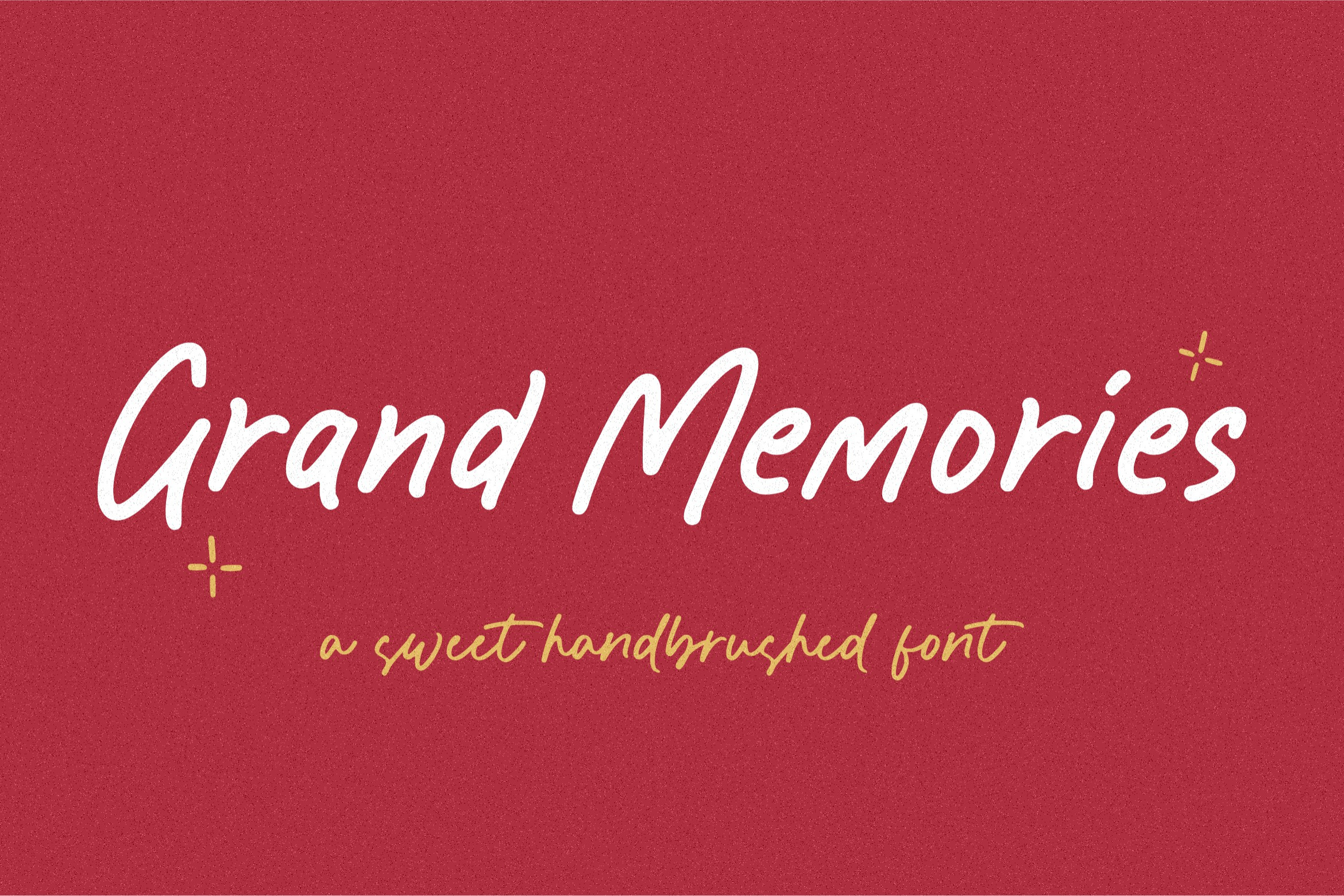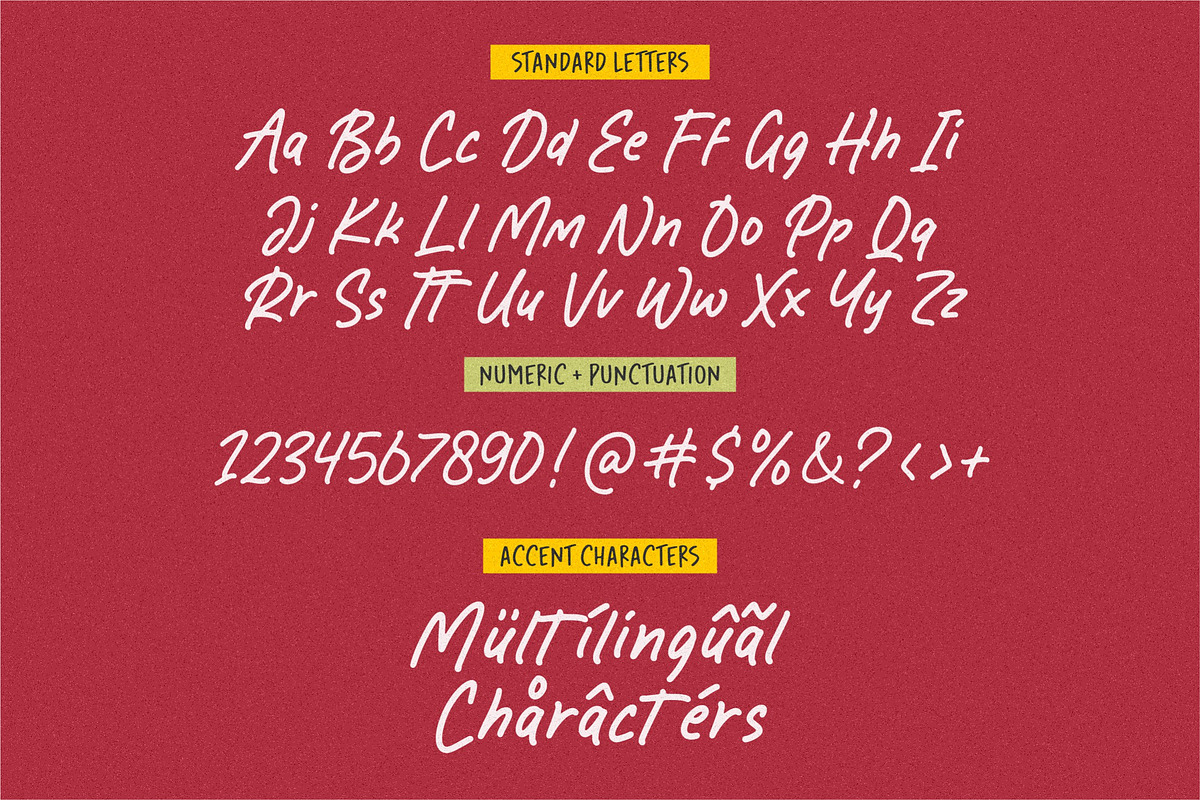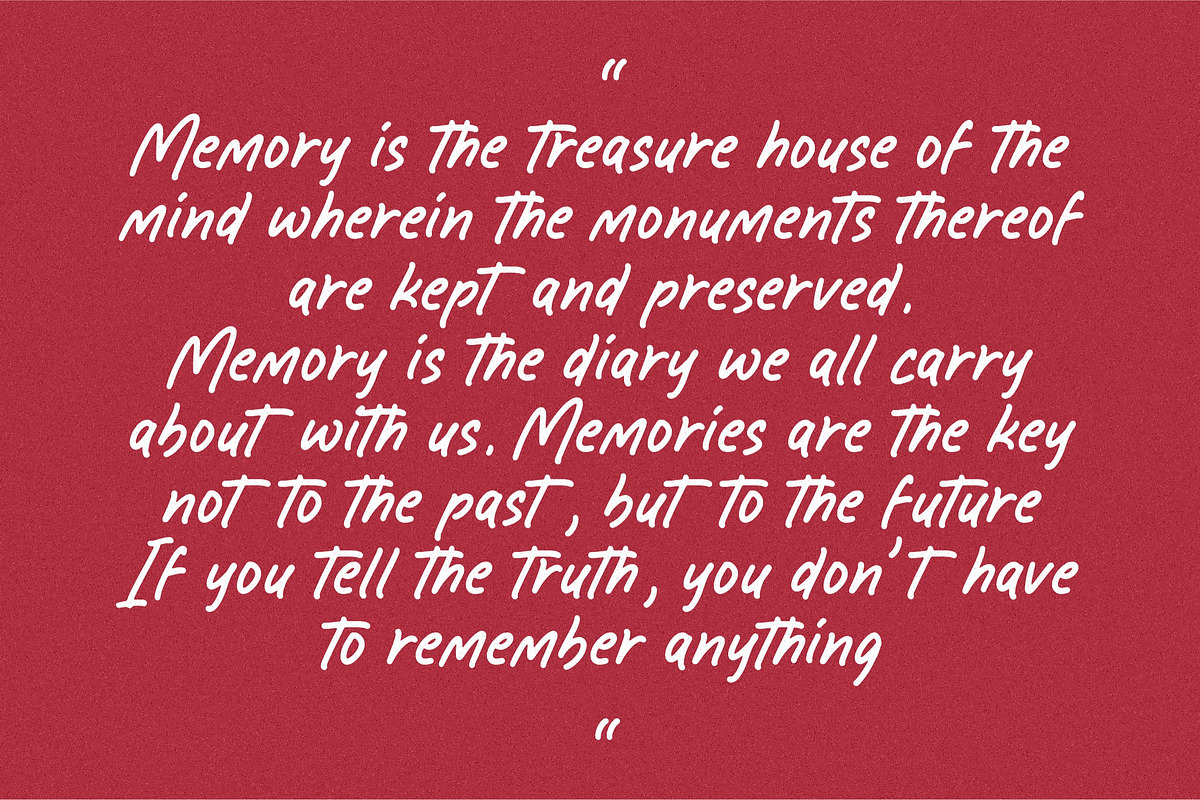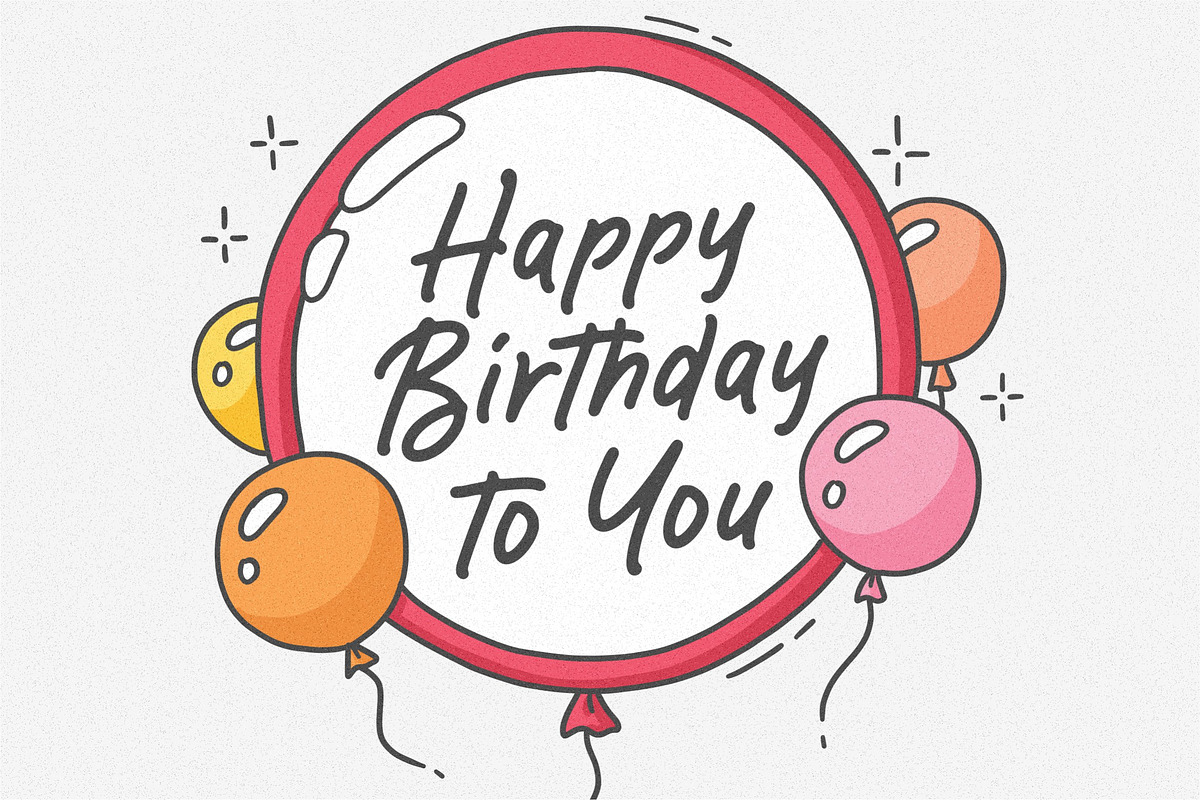
Grand Memories Font
Introducing by Balpirick Studio.
Grand Memories is a Sweet Handbrushed Font that's perfect for adding a personal touch to your design projects! With its natural, organic feel and unique character.
Crafted with care and attention to detail, this font is incredibly versatile and can be used for a range of design projects, including logos, branding, invitations, and more. Its modern, handwritten style gives it a unique character that's sure to make an impact.